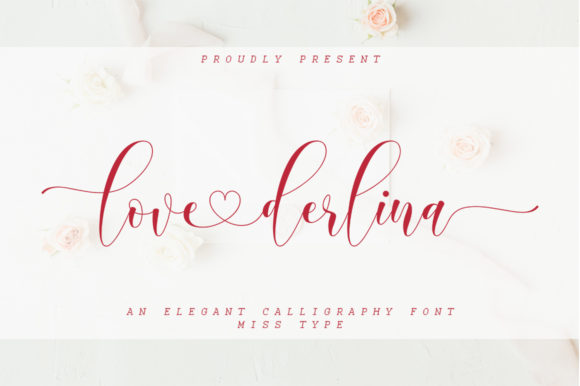
Love Derlina: A Designer’s Honest Review
When a new script font lands on my desktop, I do not just look at the letterforms. I look for the soul of the typeface. Does it have rhythm? Does it breathe? Or is it just another rigid vector path pretending to be human handwriting? After spending the last week testing Love Derlina across various mockups and client briefs, I can confidently say this typeface possesses a distinct visual personality that bridges the gap between playful charm and professional elegance.
My first impression was immediate. Love Derlina does not shout; it whispers with confidence. The strokes are fluid, carrying a natural variation in weight that mimics the pressure of a real brush or pen. It avoids the robotic perfection that plagues many digital scripts, offering instead a handwritten font aesthetic that feels authentic. For designers, this is crucial. We are not just placing text; we are curating an emotional response. This font creates a mood of warmth, approachability, and refined creativity.
Real-World Performance in Brand Identity
The true test of any premium font is how it holds up in actual project work. I integrated Love Derlina into several brand identity concepts, ranging from boutique coffee shops to high-end skincare lines. In logo design, the font shines when used for the primary brand mark. Its ligatures connect smoothly, creating a cohesive unit rather than disjointed letters. This connectivity is vital for recognition and audience trust. When a logo feels unified, the brand feels established.
However, context is everything. I found that Love Derlina performs exceptionally well in packaging design, particularly for products that rely on tactile appeal. Imagine a candle label or a chocolate box wrapper. The script adds a layer of perceived value, suggesting that the product inside is crafted with care. It transforms a simple label into a piece of art. For small business owners and crafters using platforms like Cricut or Canva, this versatility is a significant asset. It allows for the creation of printable design assets that look professionally typeset without requiring advanced graphic design skills.
Navigating Readability and Hierarchy
Let us address the elephant in the room: readability. As a display font, Love Derlina is not designed for body text. Attempting to use it for paragraphs or long-form content will frustrate your audience and damage user experience. Instead, treat it as a decorative accent. It belongs in large headlines, short phrases, and quotes. In editorial design, I used it for pull quotes and chapter headers, where its expressive nature could be appreciated without compromising the flow of information.
Hierarchy is key. When pairing Love Derlina with other typefaces, the contrast must be sharp. I tested it beside a clean sans serif font and a traditional serif font. The results were telling. Paired with a geometric sans serif, the combination felt modern and crisp, ideal for web design and social media graphics. The stark difference between the organic curves of the script and the rigid lines of the sans serif created visual tension that kept the viewer engaged. Conversely, pairing it with a classic serif added a touch of vintage sophistication, suitable for wedding invitations or luxury merchandise.
Digital Applications and Social Media
In the realm of digital marketing, attention spans are short. Your visuals must communicate instantly. Love Derlina excels in social media graphics because it stands out against the noise of standard corporate typography. Whether used in Instagram stories, Pinterest pins, or Facebook ads, the font draws the eye. It adds a human touch to digital spaces that often feel cold and impersonal.
For bloggers and content creators, using this font in blog graphics or website headers can significantly boost engagement. It signals that the content is personal and curated. However, caution is required. On mobile devices, intricate scripts can become illegible if scaled down too far. Always test your designs on multiple screen sizes. I recommend using Love Derlina for titles only, keeping supporting text in a highly readable secondary font. This ensures that your message is both beautiful and accessible.
Practical Designer Notes for Implementation
Before you commit to using Love Derlina in a commercial project, here are some practical steps I took during my evaluation. First, always test the font in black and white. Color can mask poor spacing or weak contrast. In monochrome, the structural integrity of the letterforms becomes apparent. Love Derlina held up well, with consistent stroke widths and balanced negative space.
- Check kerning: While most digital fonts have auto-kerning, manual adjustments may be needed for specific letter combinations to ensure optimal flow.
- Test uppercase vs. lowercase: Script fonts often look best in lowercase or title case. All-caps usage can break the natural connection between letters, so use it sparingly.
- Mockup integration: Place the font on real-world textures like paper, fabric, or wood. See how the ink bleed or texture affects the legibility.
If you are looking for a font that balances professionalism with personality, Love Derlina is a strong contender. It requires thoughtful application and respect for its limitations, but when used correctly, it delivers results that are both visually stunning and strategically effective. For designers who value authenticity and detail, this script from Script Amp is worth adding to your toolkit. It reminds us that in a world of automated design, the human touch still matters.